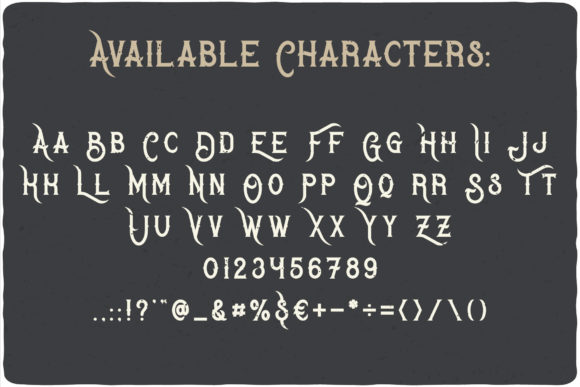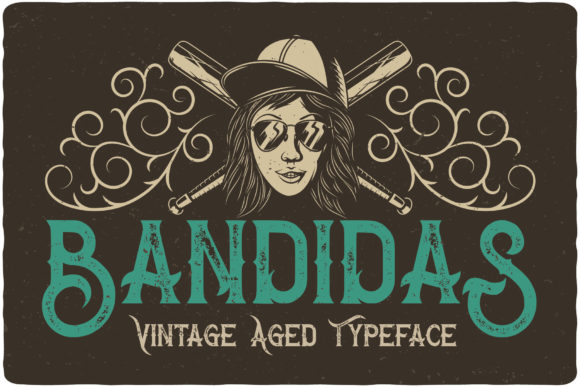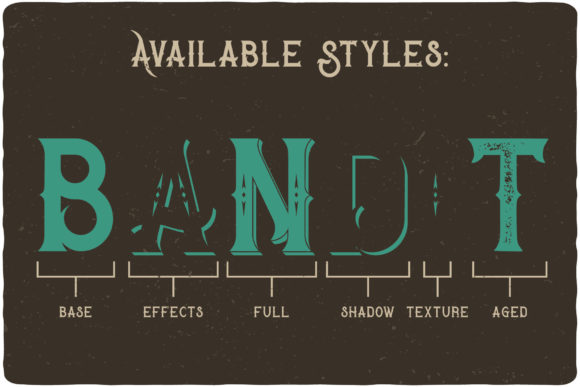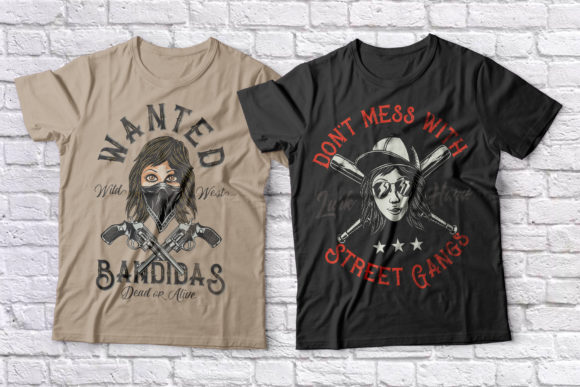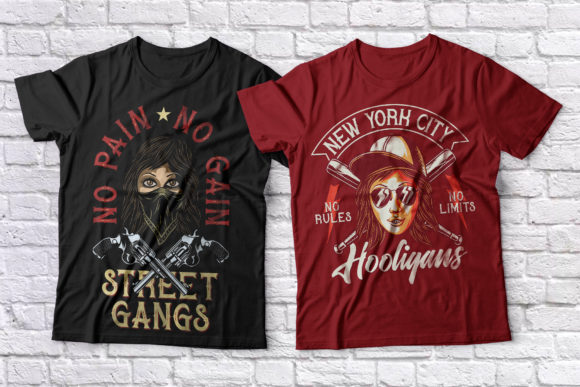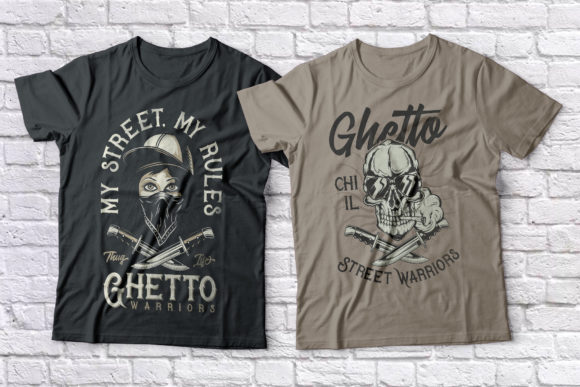
Bandidas Font: The Ultimate Display Font for Bold and Beautiful Designs
Are you looking for a font that exudes confidence, personality, and style? Look no further than Bandidas Font! This stunning display font is perfect for designers and crafters who want to add a touch of elegance and sophistication to their projects. In this article, we’ll dive into the world of Bandidas Font and explore its features, uses, and benefits.
What is Bandidas Font?
Bandidas Font is a cool, assertive, and bold display font that is designed to make a statement. Its unique and stylish lettering makes it perfect for a variety of designs that require a personalized touch. Whether you’re working on wedding invitations, thank you cards, weddings, greeting cards, logos, or any other project that needs a bold and eye-catching font, Bandidas Font is the perfect choice.
Key Features of Bandidas Font
- Bold and Assertive: Bandidas Font is a bold and assertive font that is designed to grab attention. Its thick lines and confident lettering make it perfect for designs that need to make a statement.
- Cool and Stylish: Bandidas Font has a cool and stylish vibe that makes it perfect for designs that require a touch of elegance and sophistication.
- Versatile: Bandidas Font is a versatile font that can be used on a variety of designs, from wedding invitations to logos, and from greeting cards to thank you cards.
- Easy to Read: Despite its bold and assertive nature, Bandidas Font is easy to read and understand, making it perfect for designs that require clear communication.
Uses of Bandidas Font
Bandidas Font is a versatile font that can be used on a variety of designs, including:
- Wedding Invitations: Bandidas Font is perfect for wedding invitations, as it adds a touch of elegance and sophistication to the design.
- Thank You Cards: Bandidas Font is also great for thank you cards, as it provides a stylish and personalized way to express gratitude.
- Weddings: Bandidas Font can be used on wedding-related designs, such as wedding programs, menus, and place cards.
- Greeting Cards: Bandidas Font is perfect for greeting cards, as it adds a touch of personality and style to the design.
- Logos: Bandidas Font can also be used to create bold and eye-catching logos that make a statement.
Benefits of Using Bandidas Font
There are many benefits to using Bandidas Font, including:
- Unique and Stylish: Bandidas Font provides a unique and stylish way to add personality to your designs.
- Versatile: Bandidas Font is a versatile font that can be used on a variety of designs, making it a great addition to your font library.
- High-Quality: Bandidas Font is a high-quality font that is designed to provide clear and crisp lettering.
In conclusion, Bandidas Font is a stunning display font that is perfect for designers and crafters who want to add a touch of elegance and sophistication to their projects. Its bold and assertive lettering, cool and stylish vibe, and versatility make it a great choice for a variety of designs. Whether you’re working on wedding invitations, thank you cards, weddings, greeting cards, logos, or any other project that needs a bold and eye-catching font, Bandidas Font is the perfect choice.
Tips and Tricks for Using Bandidas Font
Here are some tips and tricks for using Bandidas Font:
- Use it sparingly: Bandidas Font is a bold and assertive font, so it’s best to use it sparingly to avoid overwhelming the design.
- Pair it with other fonts: Bandidas Font can be paired with other fonts to create a unique and stylish combination.
- Experiment with colors: Bandidas Font can be used with a variety of colors to create a bold and eye-catching design.